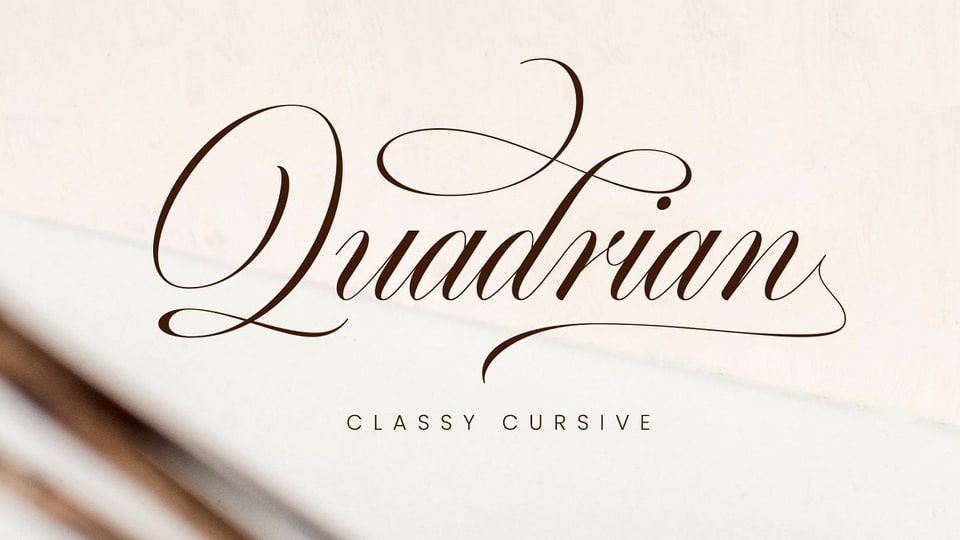
Download Quadrian font, a beautiful modern calligraphy font. Carefully designed with consistent strokes, Quadrian script font offers a minimalist, luxurious and classy feel.